Choosing the right font is essential for creating standout movie posters, album art, and promotional materials. Here are the 10 best fonts for movie posters, each carefully selected to enhance cinematic themes from sci-fi to retro, horror to elegance. These fonts from Putracetol Studio are perfect tools for designers seeking a bold and memorable visual identity.
๐ญ 1. Digitron Futures โ Futuristic Tech Font
A sleek and angular font that captures the aesthetic of high-tech thrillers. With crisp lines and geometric shapes, Digitron Futures delivers that iconic sci-fi feel the perfect choice for spaceship sagas or AI-driven narratives.
๐ 2. Quantum Futuristic โ SciโFi Display Font
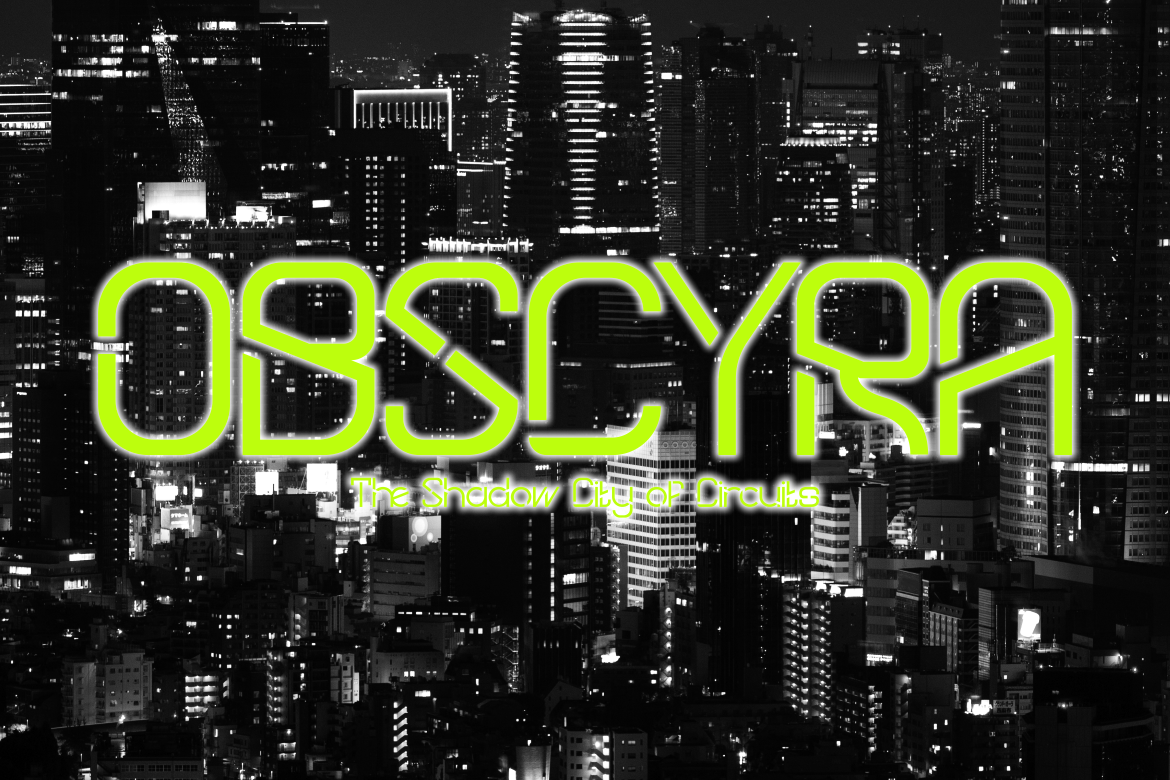
Floating letters with dynamic spacing and neon glow vibes make Quantum Futuristic ideal for posters exploring space, time travel, or digital universes. This font brings a high-energy strategy to forward-thinking film visuals.
๐ซ 3. Zeta Drive โ Techno Display Font
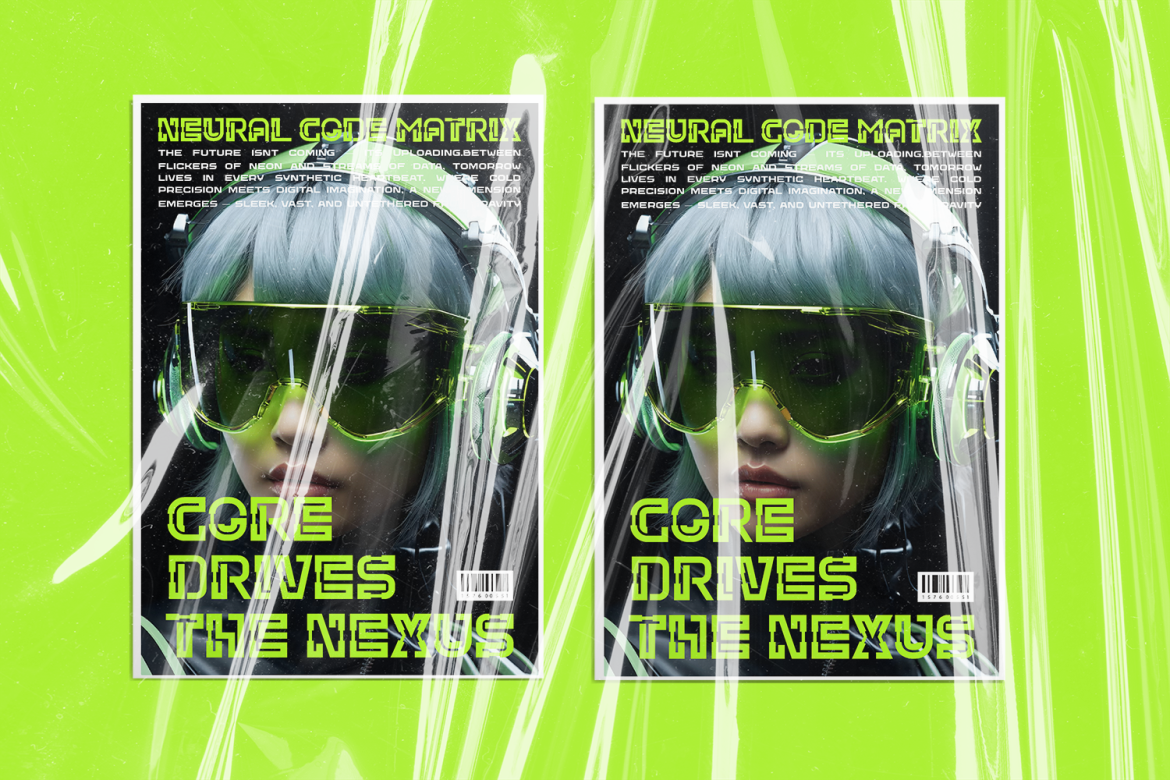
Zeta Drive offers a bold, condensed style suited for space operas and hacker-themed thrillers. Its pixeled edges and futuristic boldness make it ideal for trailer thumbnails and streaming banners.
โจ 4. Gilded Glint โ Elegant Serif Font
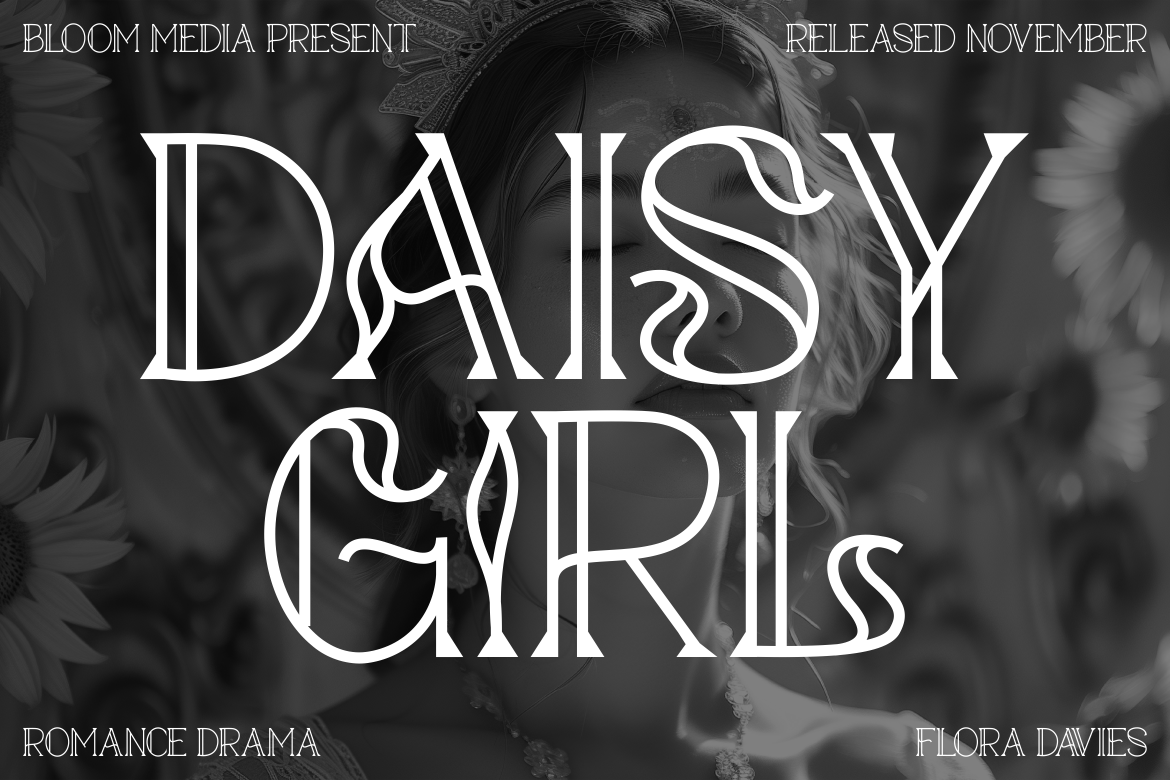
An elevated serif with fine lines and gentle curves, Gilded Glint is perfect for historical dramas, romantic sagas, and prestige film branding. It exudes sophistication and timeless charm.
๐ธ 5. Savenir โ Unique Display Font
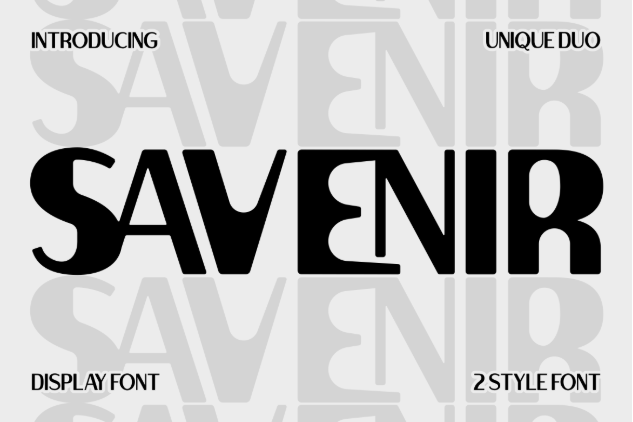
Distinctive letterforms make Savenir a standout choice for indie films and alternative genres. It balances contemporary style with artistic flair, ideal for festival posters or arthouse promotions.
๐ข 6. Variansa โ MultiโStyle Display Font
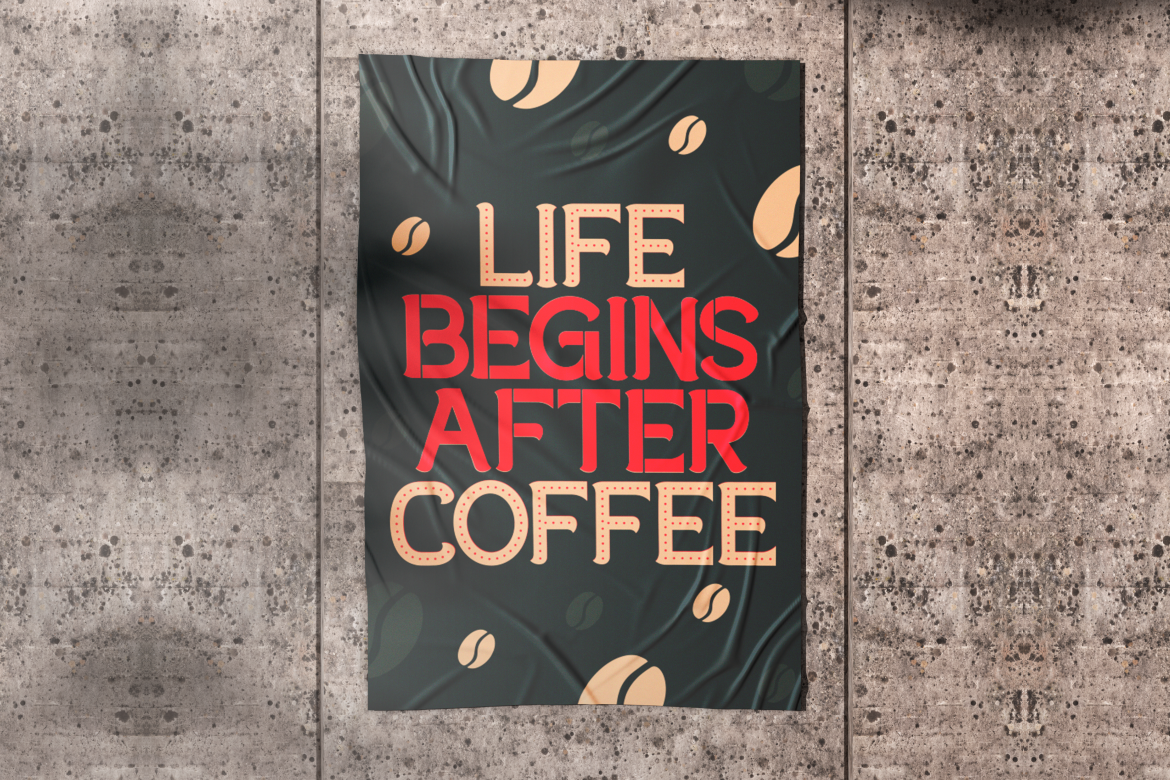
With multiple weights in one package, Variansa lets designers mix elements within a cohesive font family. Use bold styles for titles and lighter weights for credits or taglines perfect for streamlining poster design.
๐ผ 7. Retro Rush โ Vintage Retro Font
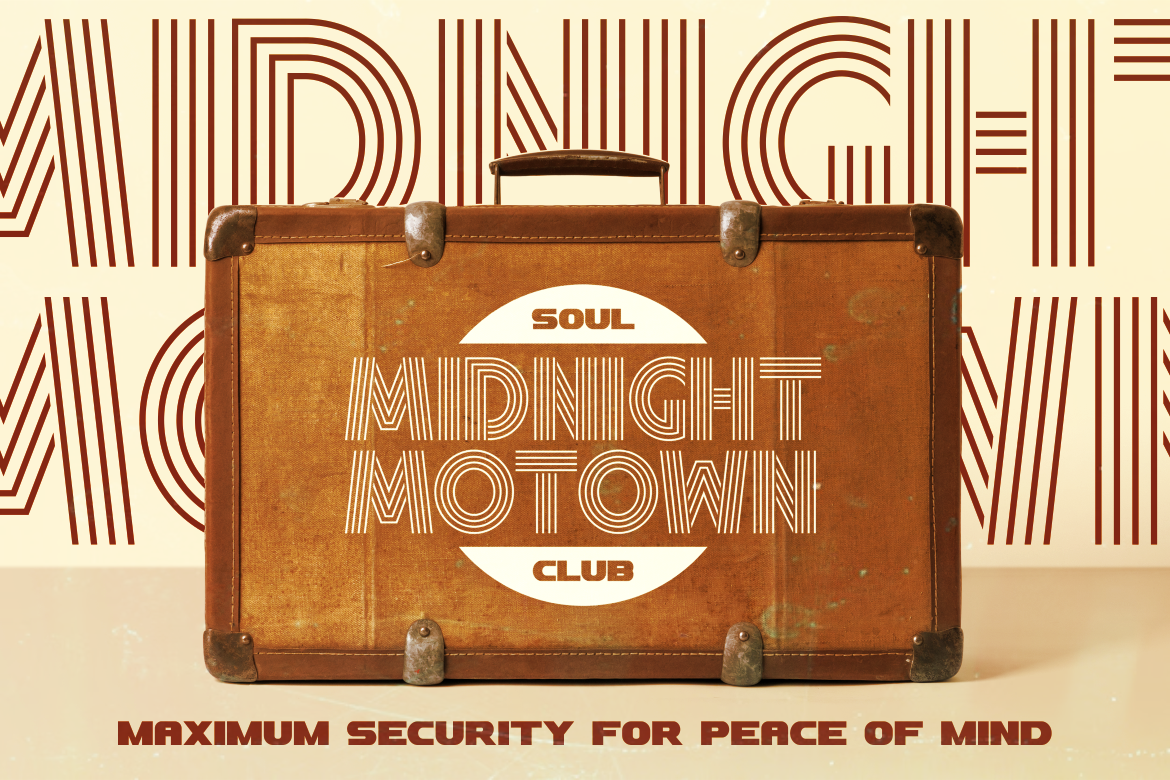
Featuring mid-century style flair, Retro Rush evokes โ70s and โ80s nostalgia. Ideal for horror throwbacks, synthwave films, or retro-themed soundtracks its eye-catching curves add charm and warmth.
๐ค 8. Western Cowboy โ Bold Vintage Font
Blocky and rugged, Western Cowboy is perfect for westerns, frontier stories, or Americana branding. Its bold silhouette echoes old movie marquees, maximal on rustic posters and merch.
๐ 9. The Night Lamp โ Horror Serif Font
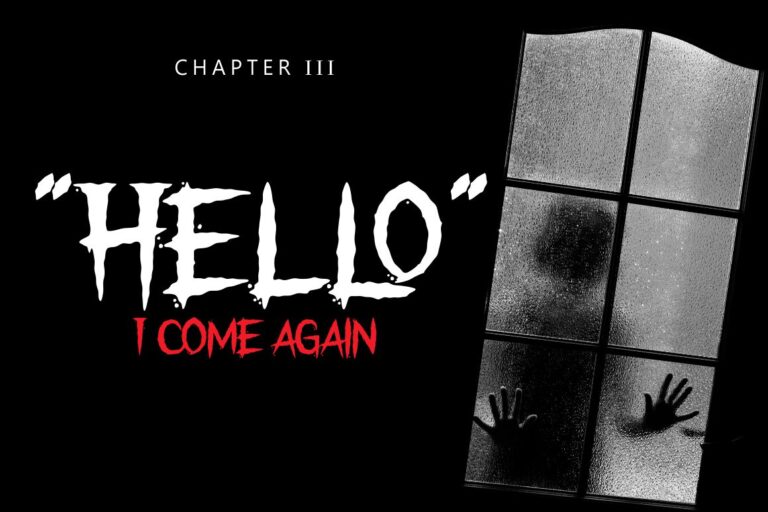
High contrast and gothic flair give The Night Lamp a haunting elegance for thriller and horror designs. Its refined curves and serifs hint at mystery and suspense, ideal for evocative poster treatment.
๐ 10. Abyzoth โ Horror Blackletter Serif
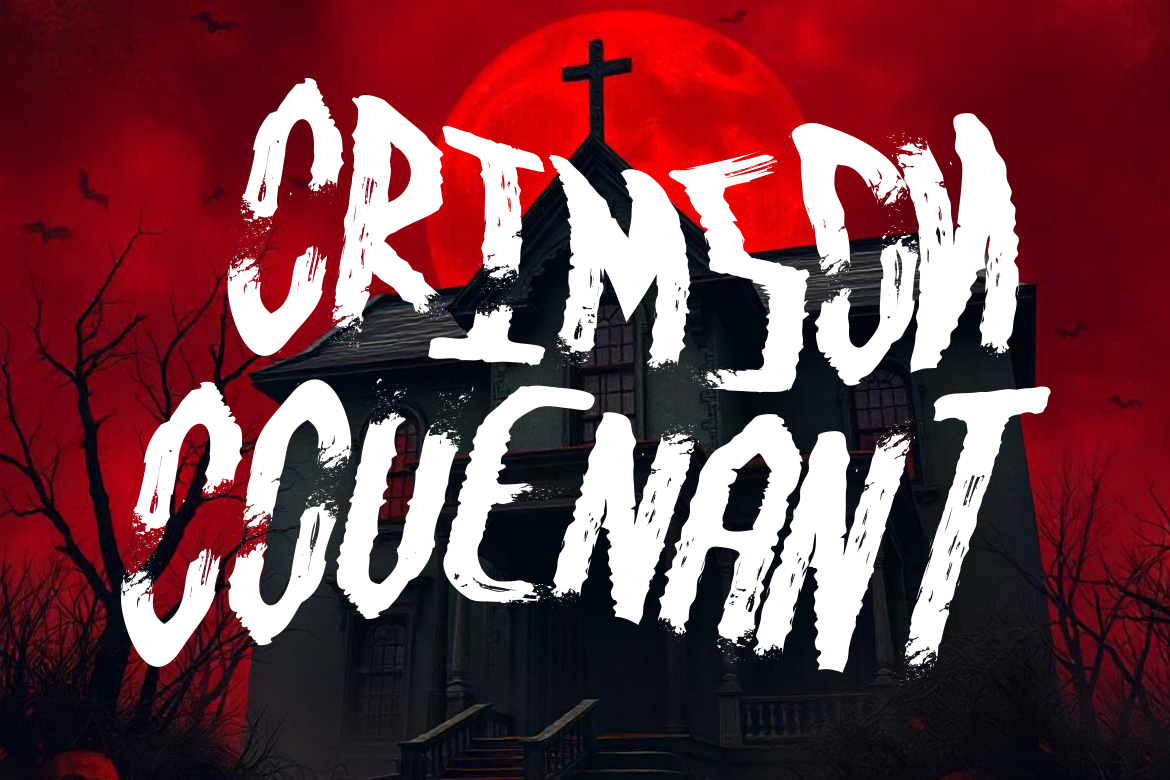
Dramatic and eerie, Abyzoth channels medieval horror aesthetics. Spikes, sharp serifs, and dark intensity make it perfect for supernatural or gothic thriller titles.
๐ฌ How to Use These Fonts in Movie Poster Design
1. Match Genre with Typography
Sci-fi? Go for Digitron, Quantum, or Zeta. Horror? The Night Lamp and Abyzoth are your go-to. Western? Choose Western Cowboy. Romantic drama? Opt for Gilded Glint.
2. Combine Font Styles Wisely
Use a bold display font for main titles and pair it with a lighter serif for credits or taglines. Font pairings like Digitron + Gilded Glint or Abyzoth + Variansa bring contrast and cohesion.
3. Scale for Formats
Ensure fonts maintain clarity from large print formats to small thumbnails. Test visibility on mobile and social media platforms.
4. Enhance with Effects
Add subtle touches like glow (for sci-fi), grain (for retro), or texture (for Western and horror) to align with aesthetic style.
5. Keep Consistent Brand Identity
Stick with two or three fonts across all collateral: posters, trailers, social graphics, and packaging. Consistency strengthens brand identity.
๐งญ Why Font Choice Matters in Cinema
- First Impressions โ Typography sets the visual tone before any trailer plays.
- Emotional Connection โ It complements visuals to evoke genre-specific feelings.
- Brand Recall โ Consistent font use helps films stand out among a sea of posters.
- Genre Translation โ It visually communicates the category (e.g., horror, sci-fi).
- Marketing Performance โ Strong visuals with the right typography drive more clicks and engagement.
โ When to Use These Fonts
- Pre-release poster campaigns
- Movie thumbnails on streaming services
- DVD/Blu-ray packaging
- Festival or cinema branding
- Social media promos
- Merchandise design (t-shirts, mugs)
๐ฏ Who Should Use These Fonts?
- Film promo designers looking to convey mood and genre
- Indie filmmakers needing eye-catching visuals without agency budgets
- Themed event promoters (e.g. horror nights, retro-vibe events)
- Album designers combining audio and visual storytelling
- YouTube creators launching movie review or commentary channels